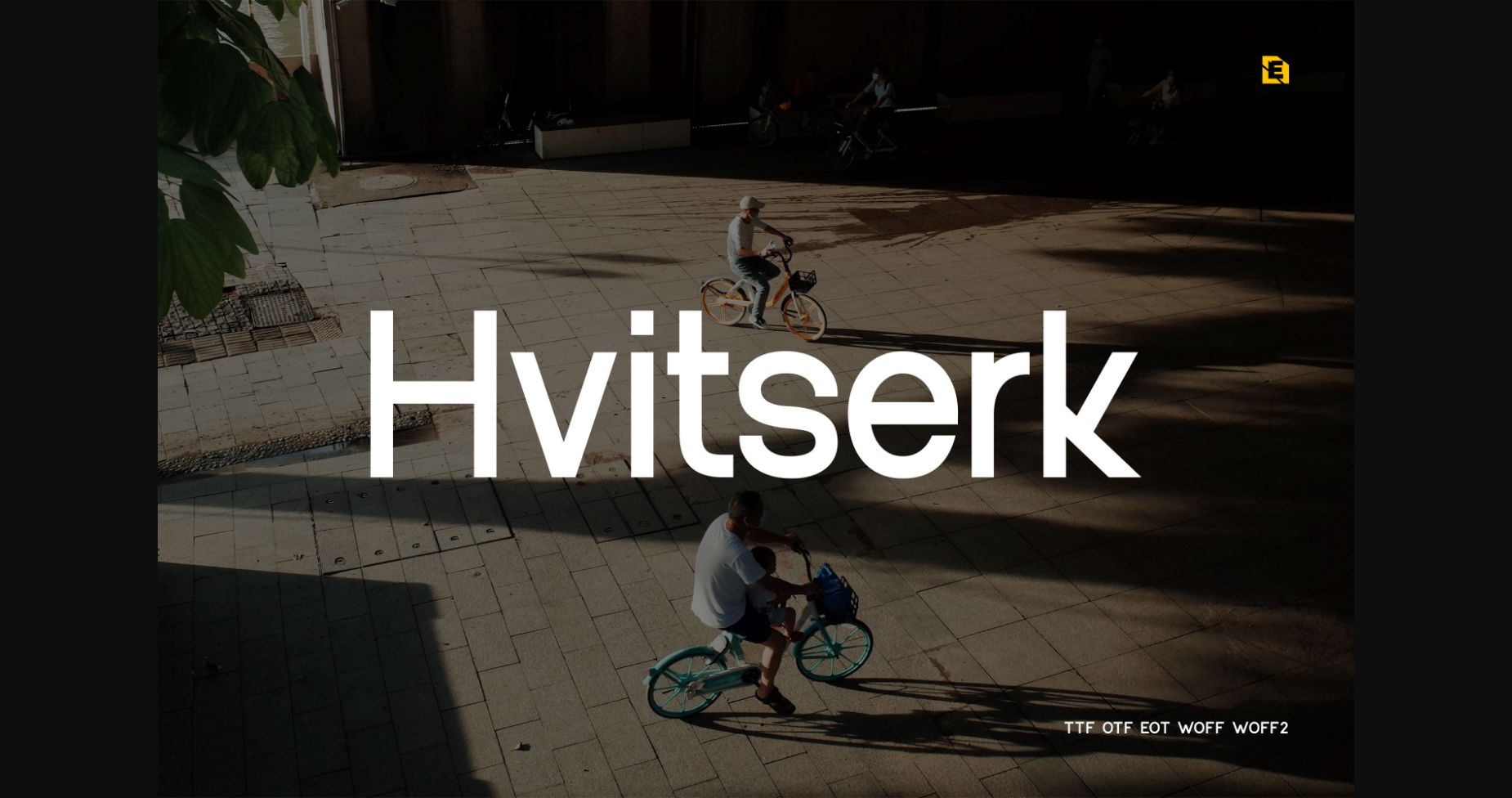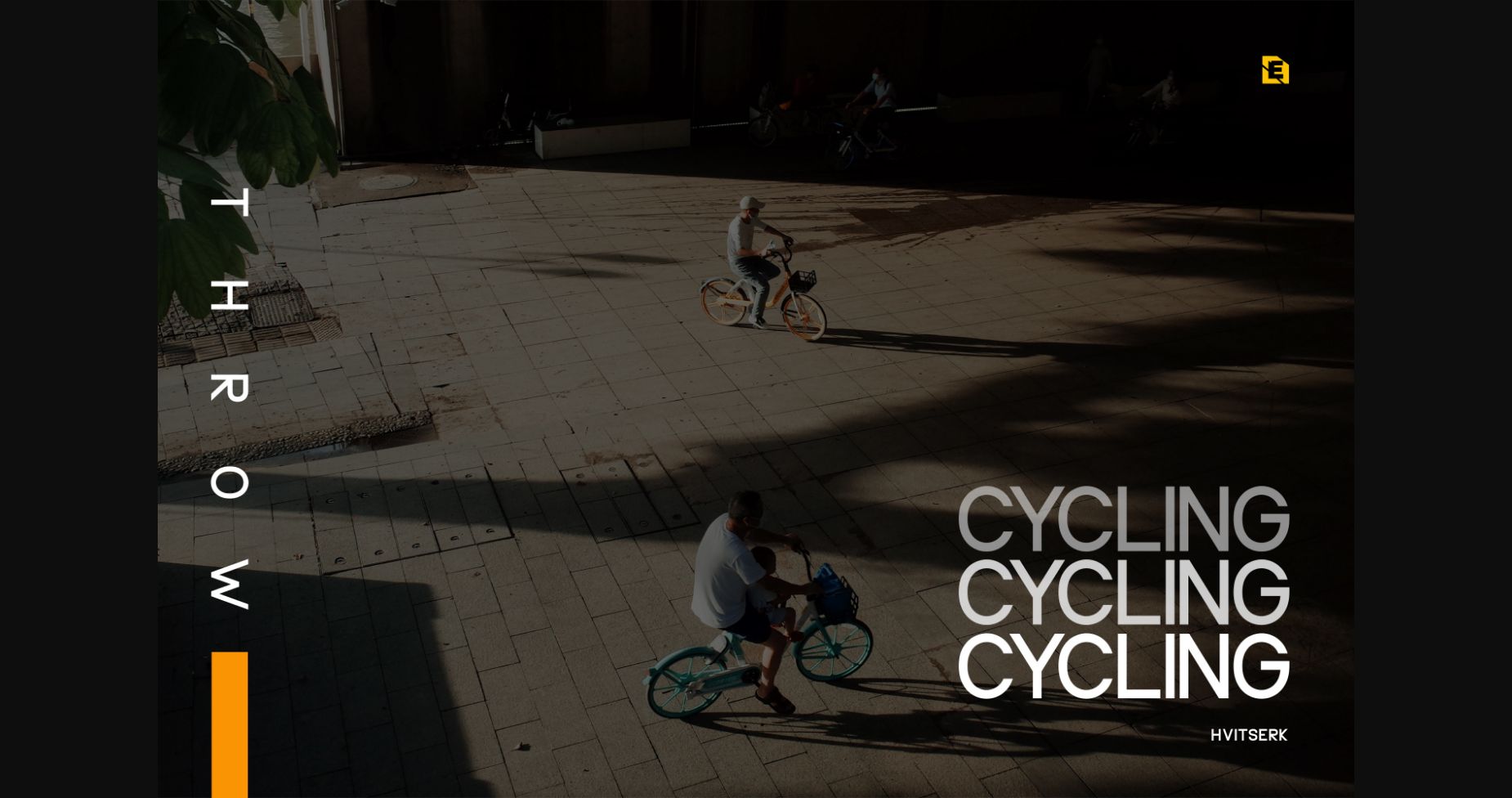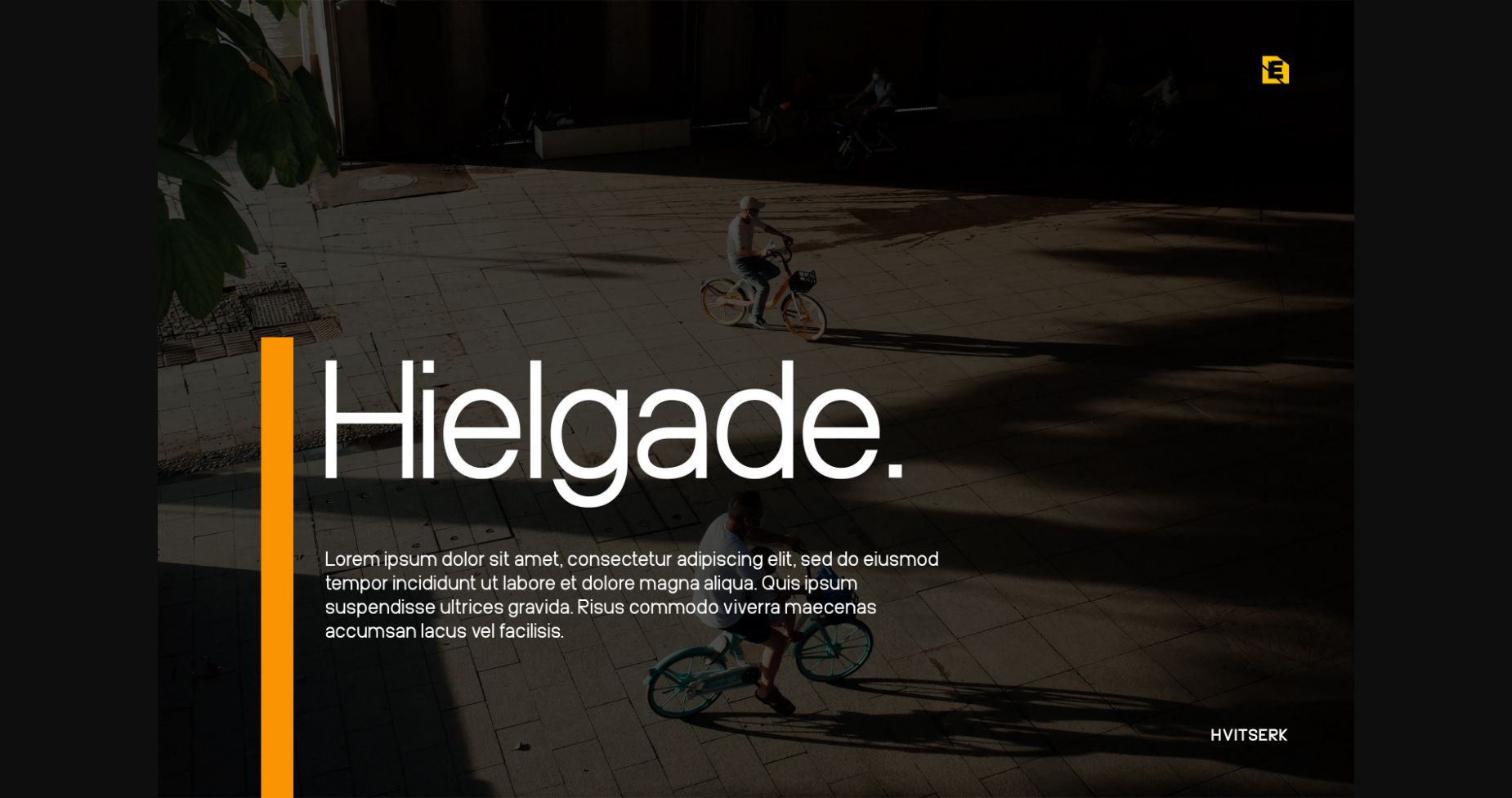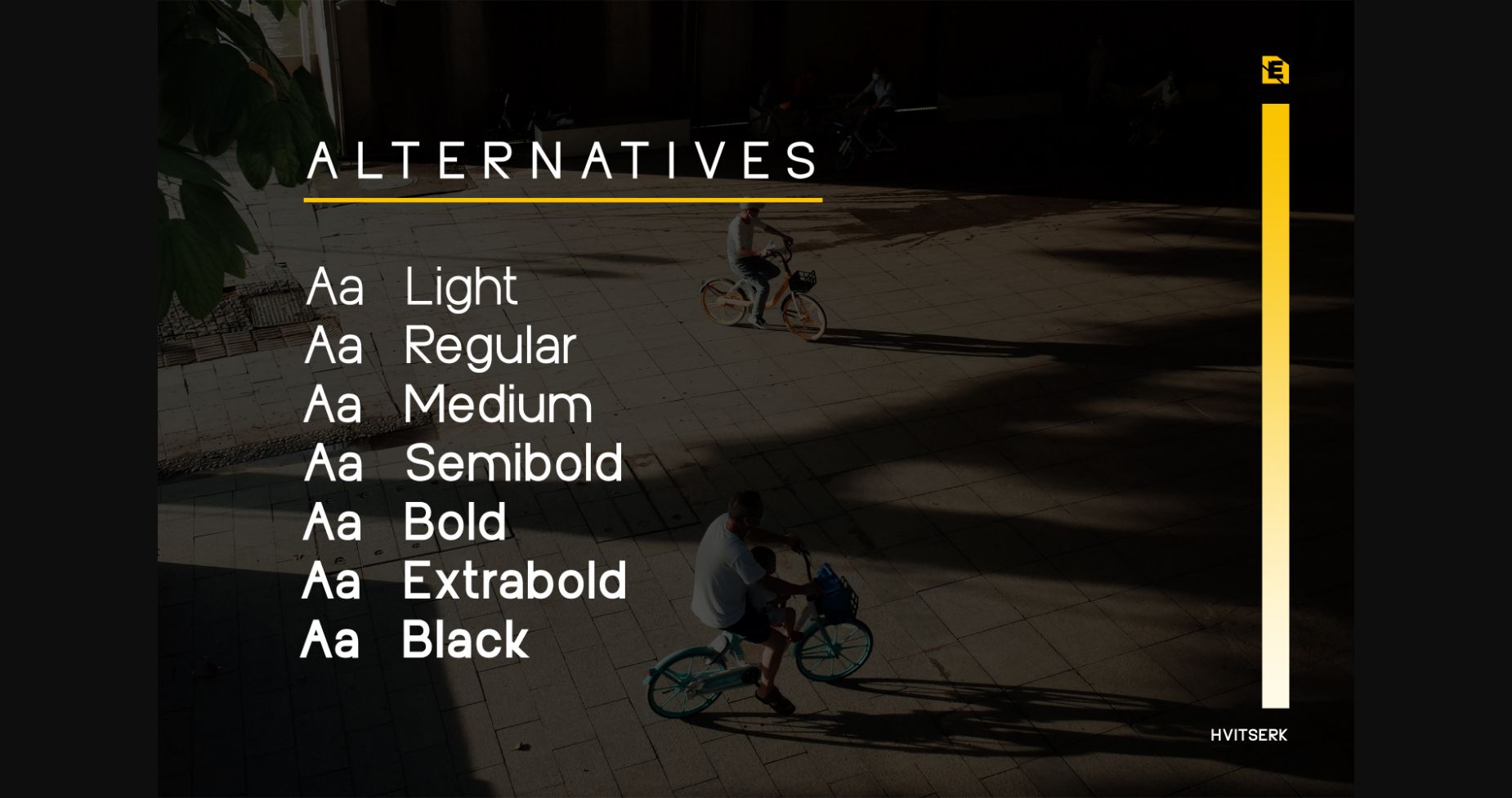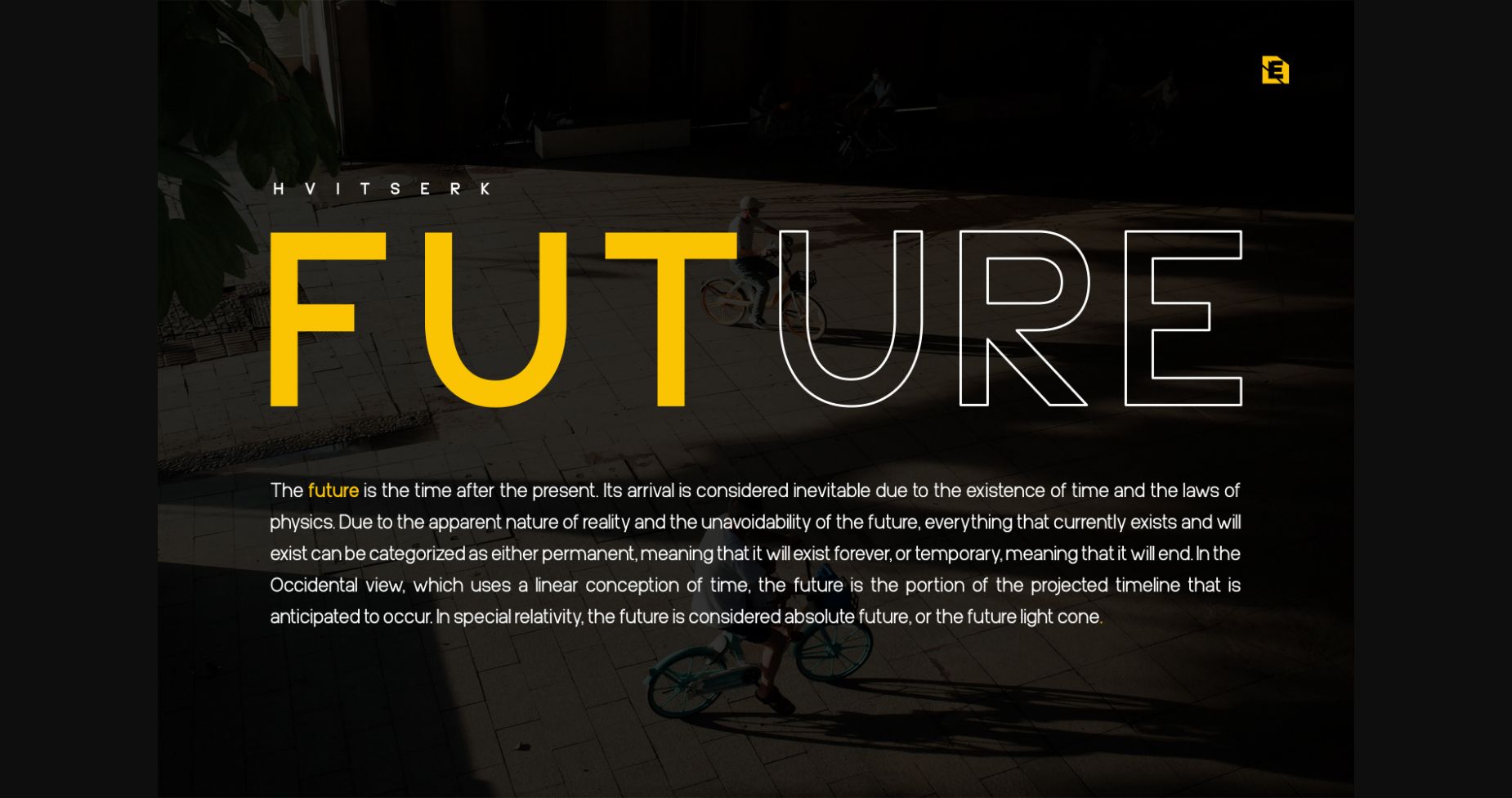
Hvitserk Font
About Hvitserk Font
Hvitserk is a minimal and neat sans serif font. It can easily be matched to an incredibly large set of projects, so add it to your creative ideas and notice how it makes them stand out!
In today's fast-paced work environment, where digital communication and information consumption are integral to our daily routines, the choice of fonts can significantly impact...